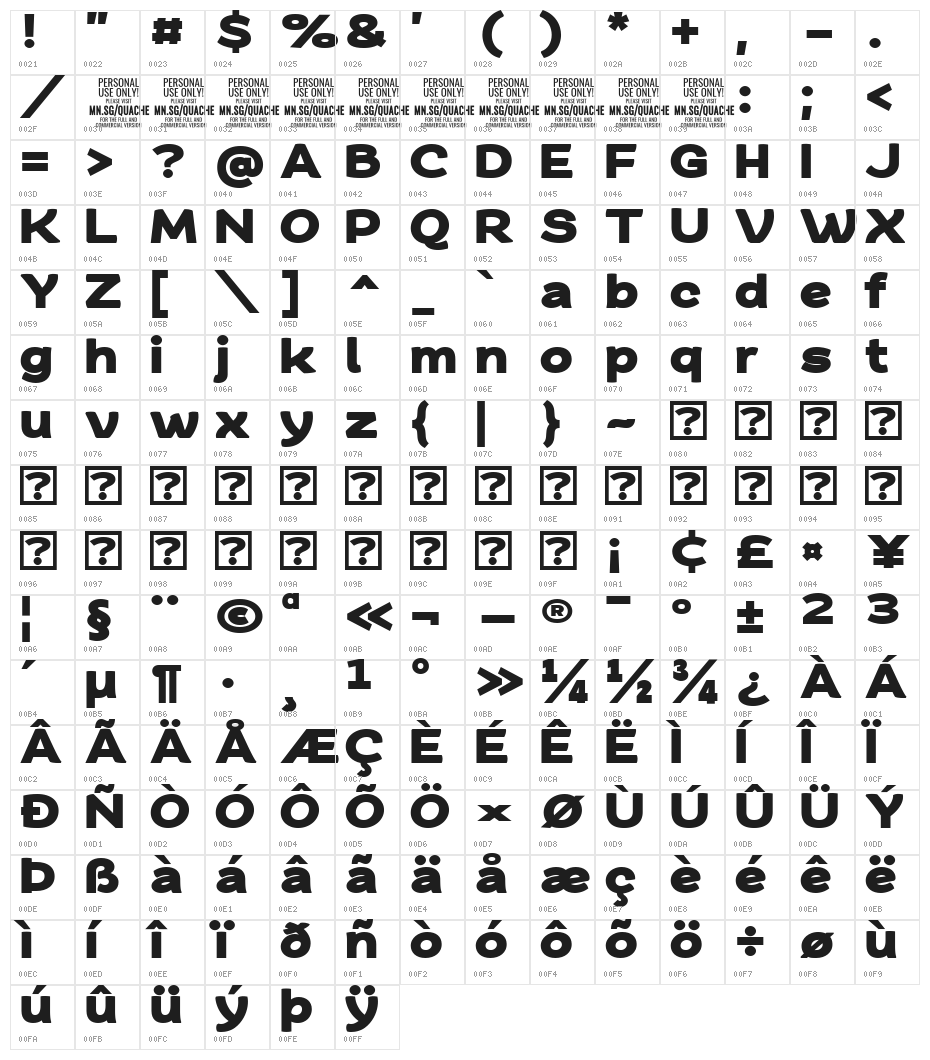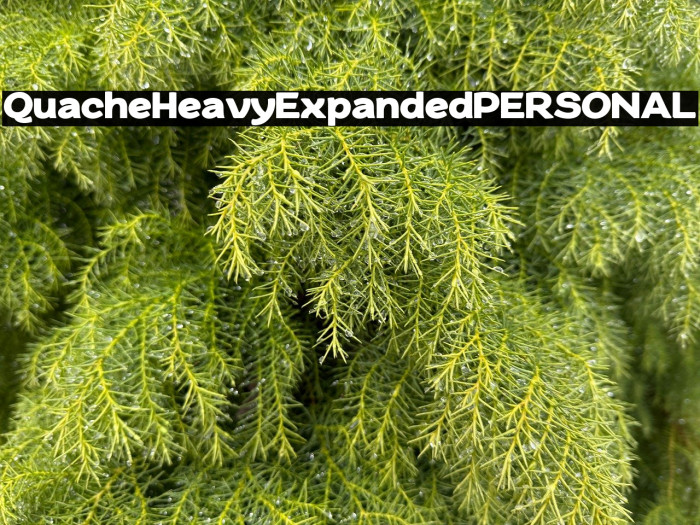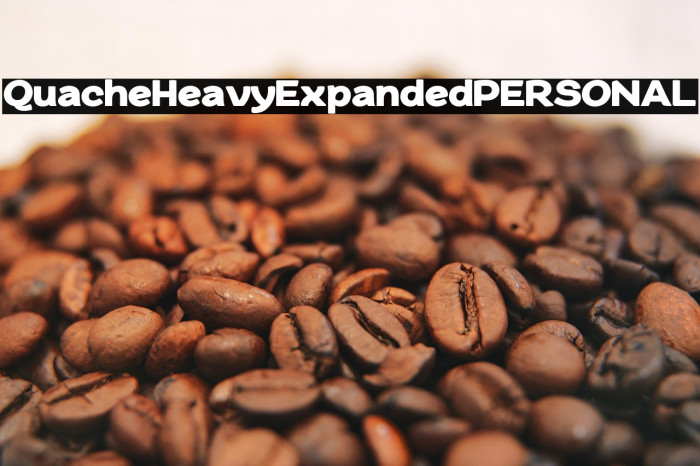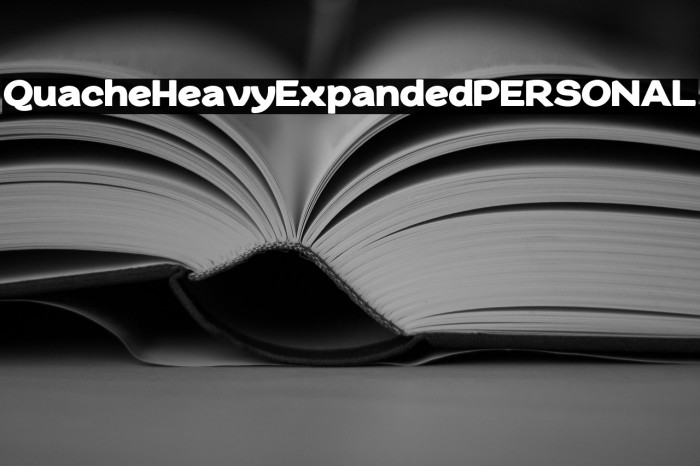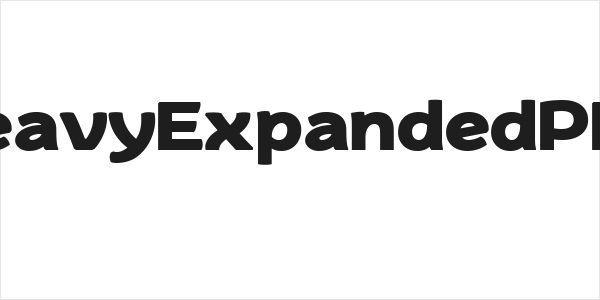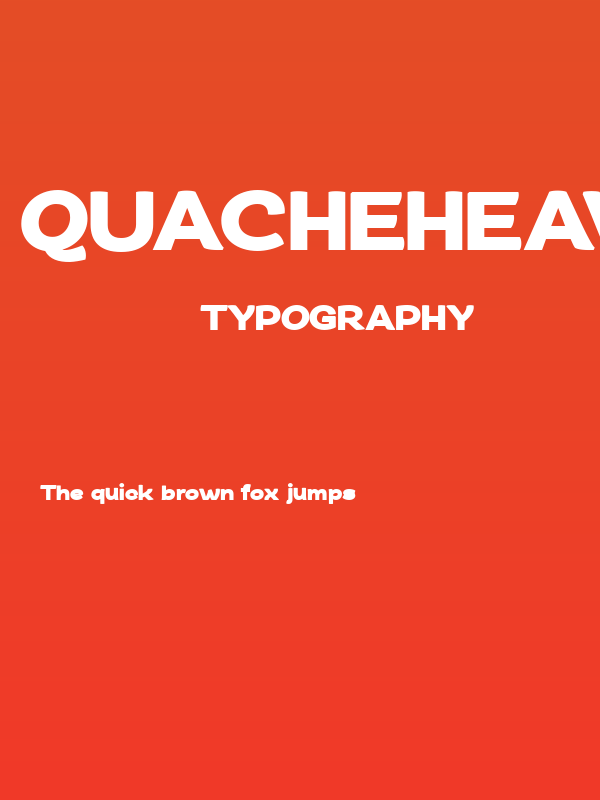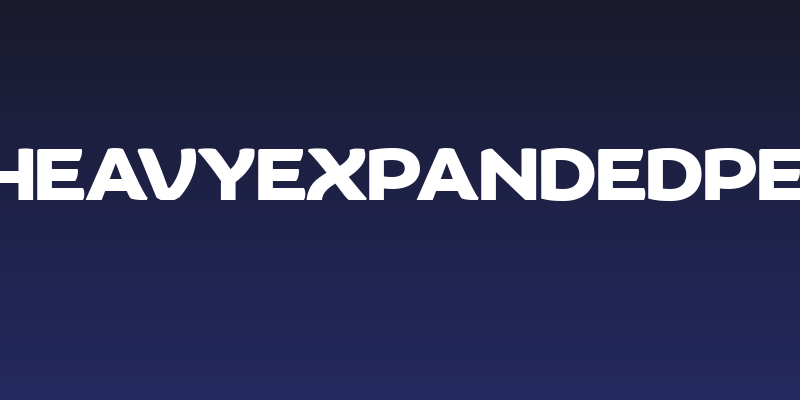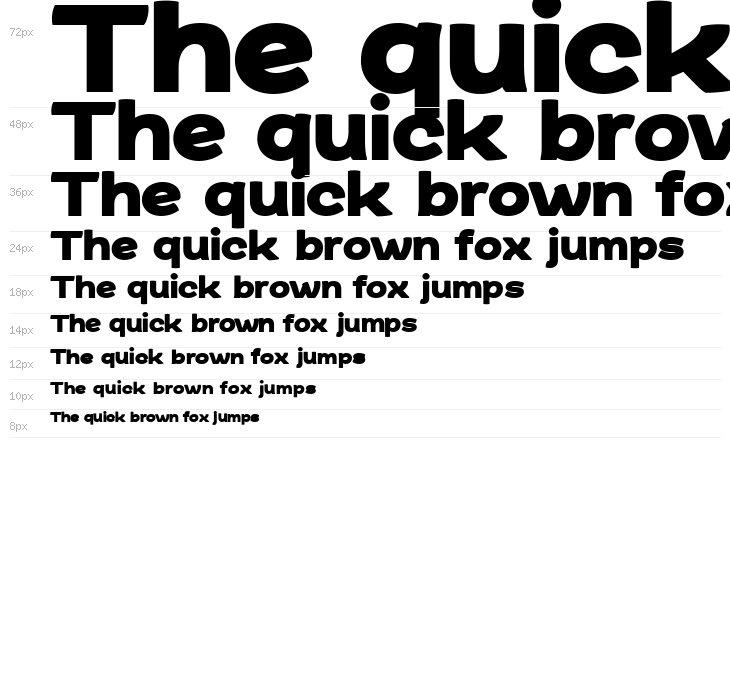
QuacheHeavyExpandedPERSONAL Font
QuacheHeavyExpandedPERSONAL Description
This font features a bold and heavy appearance with expanded letterforms, creating a strong visual impact. The characters are uniformly thick, providing a consistent and powerful look. The uppercase and lowercase letters maintain a cohesive style, with rounded edges that soften the overall boldness. The numerals and special characters are designed to match the robust style of the alphabet, ensuring a harmonious appearance across all text. This font is ideal for making statements and grabbing attention due to its substantial weight and expanded width.
| Proposed Projects | Ideal for headlines, posters, branding, and any design requiring a bold statement. |